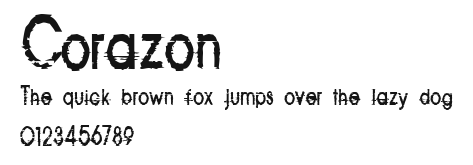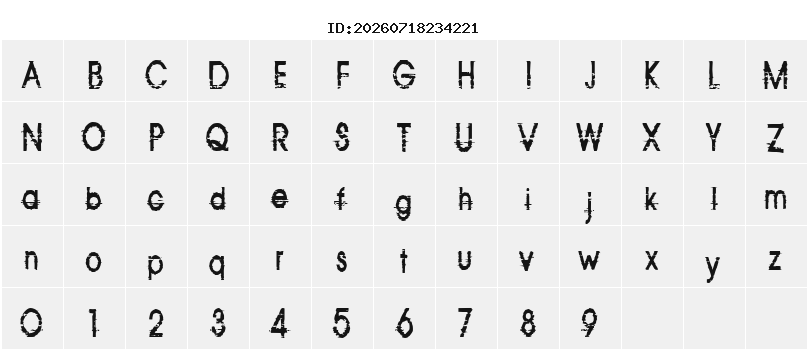
• Font Name: Corazon
• Font ID: VIPER NORA
• Full Font Name: Corazon
• PostScript Name: Corazon
About Corazon.ttf
Corazon.ttf is a modern, elegant sans-serif font designed for ultimate readability and visual harmony. Perfect for branding, headlines, web design, and print materials.